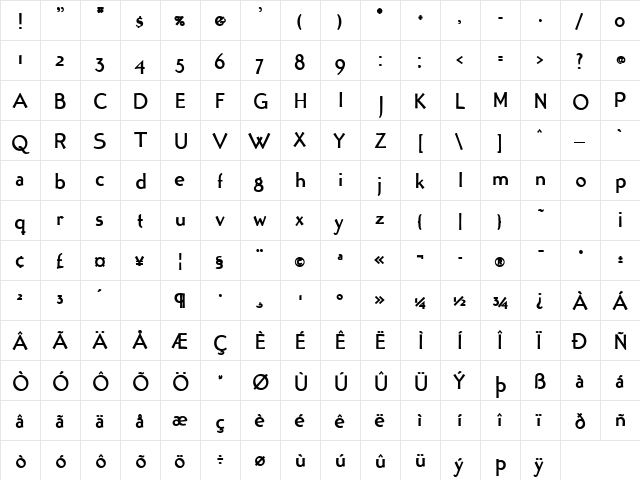
Tonic ExtraBold
Design Context for Tonic Typeface
Tonic is a composed and adaptable typeface that performs quietly and consistently across a wide range of design contexts. The heavy weight commands attention and anchors typographic hierarchies.